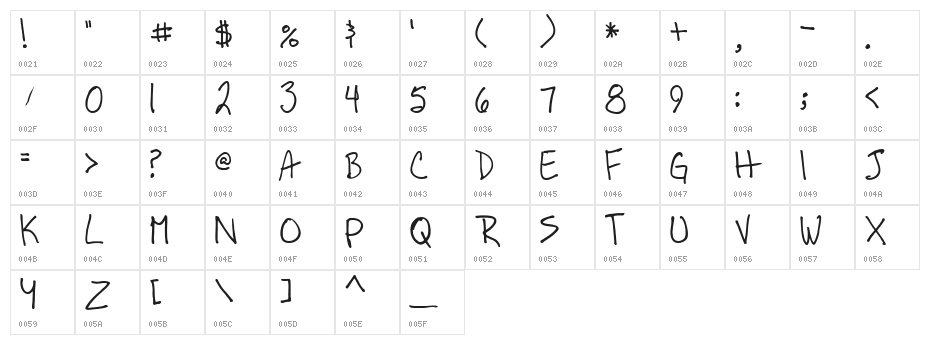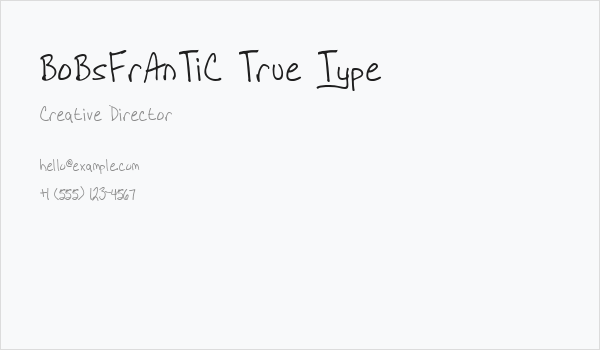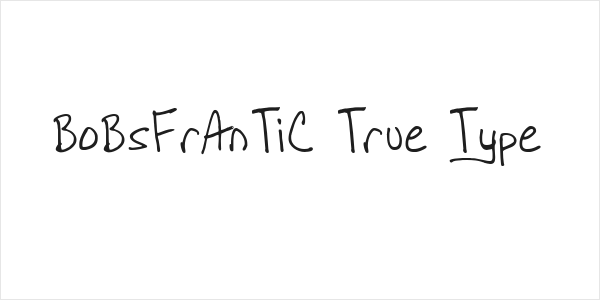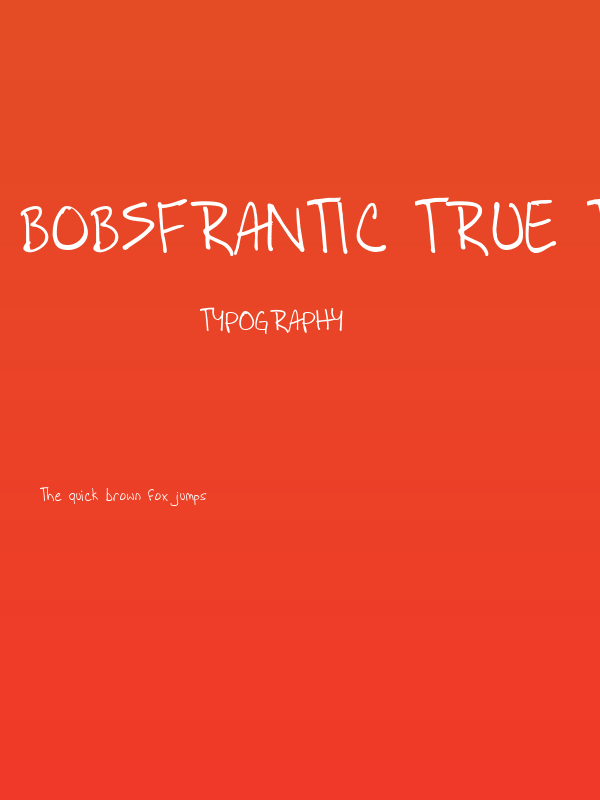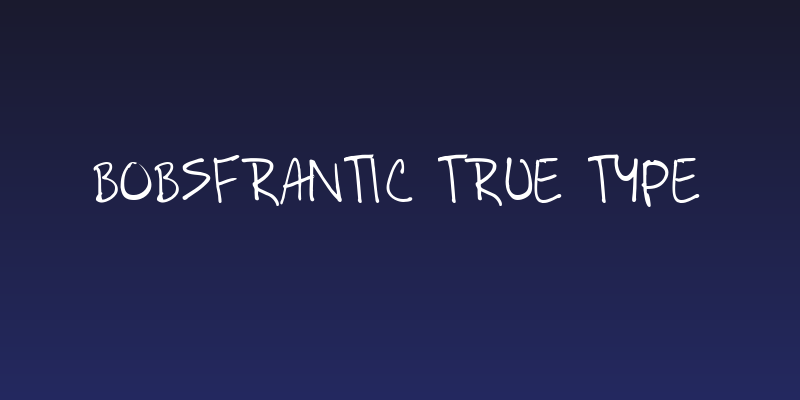
BoBsFrAnTiC True Type Font
BoBsFrAnTiC True Type Description
This font exudes a playful and casual handwritten style, characterized by its irregular and spontaneous strokes. The letters are slightly tilted, giving a dynamic and lively appearance. The uppercase and lowercase letters maintain a consistent style, with rounded edges and varying line thickness that adds to the informal feel. Numbers and special characters follow the same whimsical design, making the font versatile for creative projects. The overall look is approachable and friendly, perfect for conveying a personal touch.
| Proposed Projects | Ideal for greeting cards, children's books, casual branding, and social media graphics. |